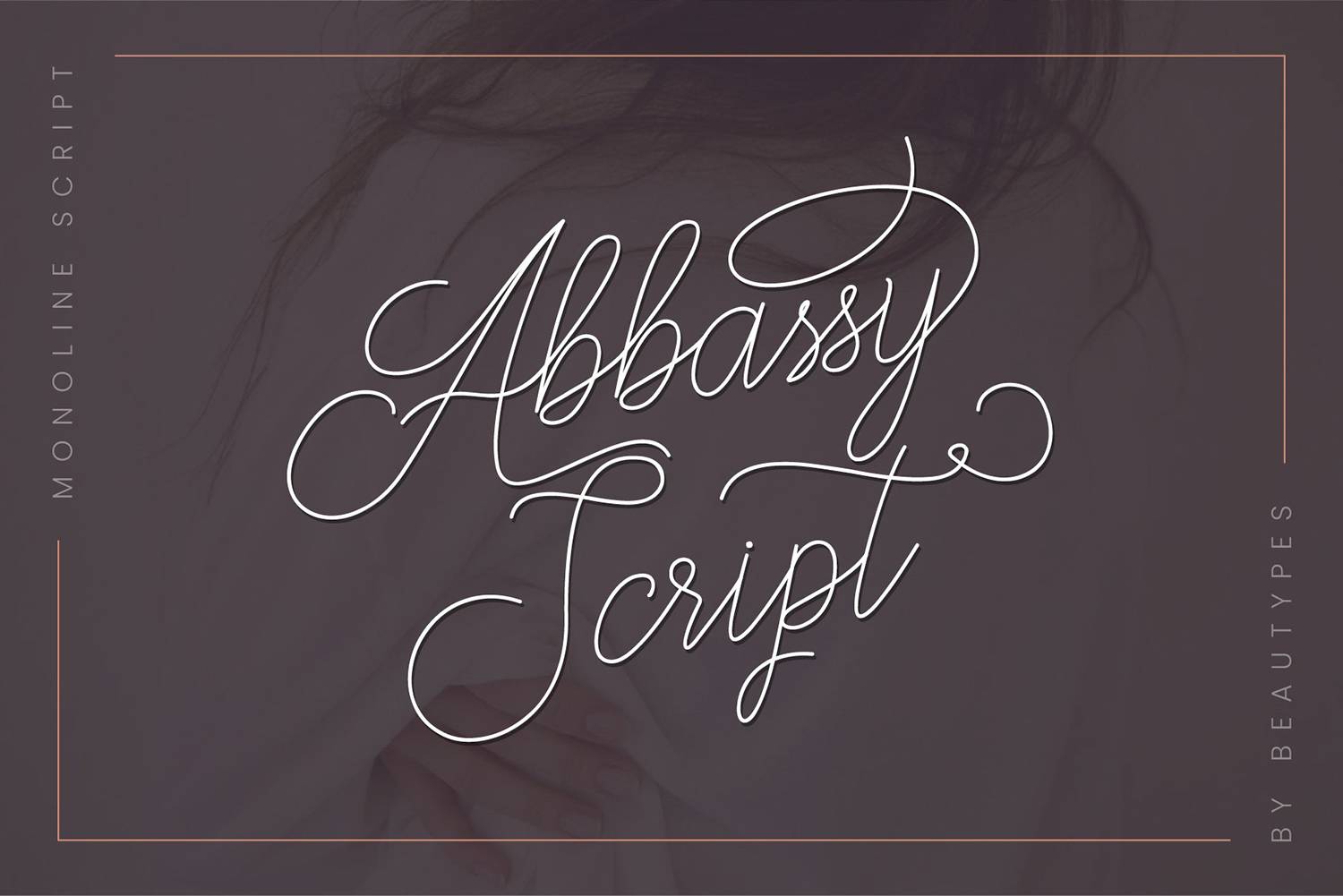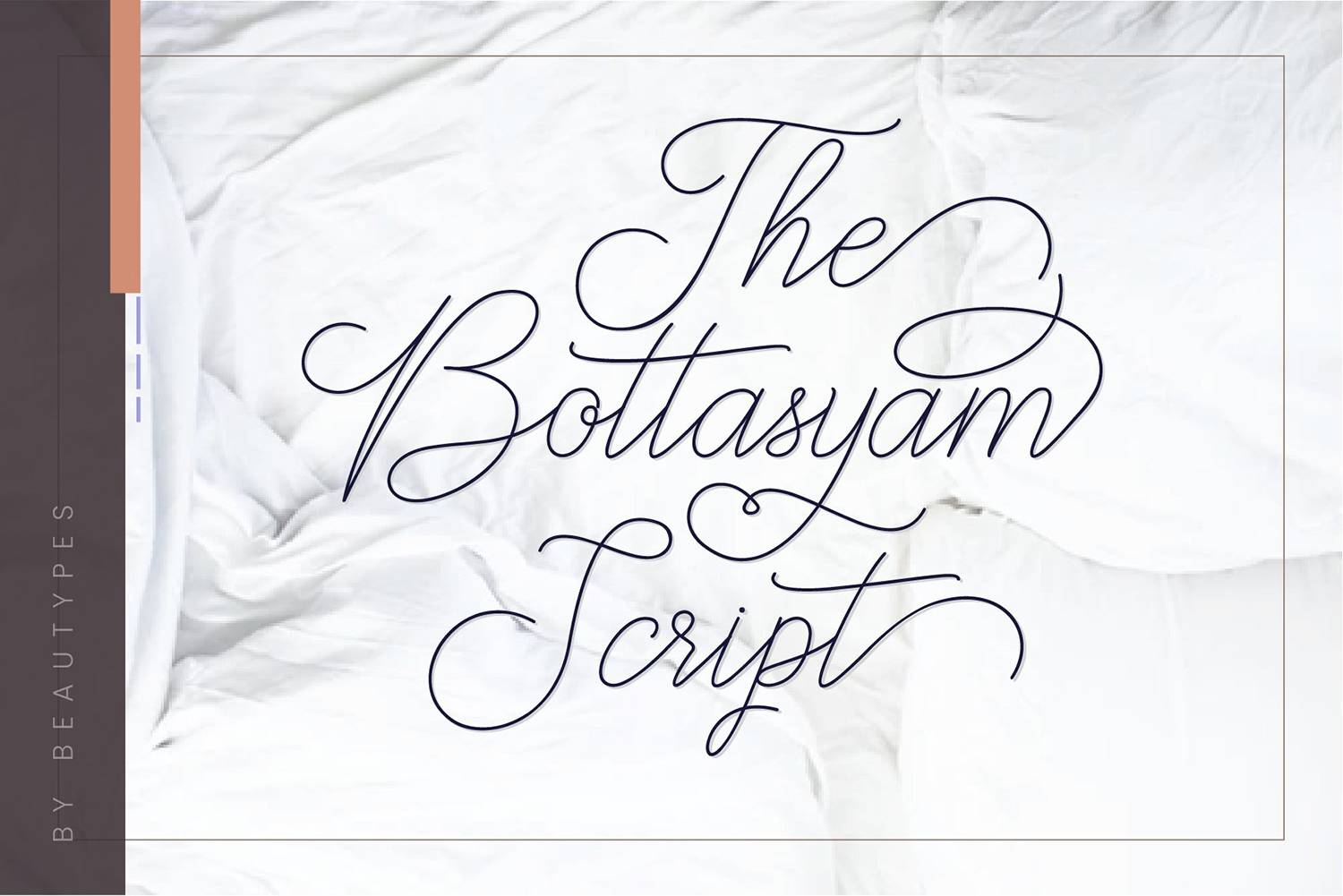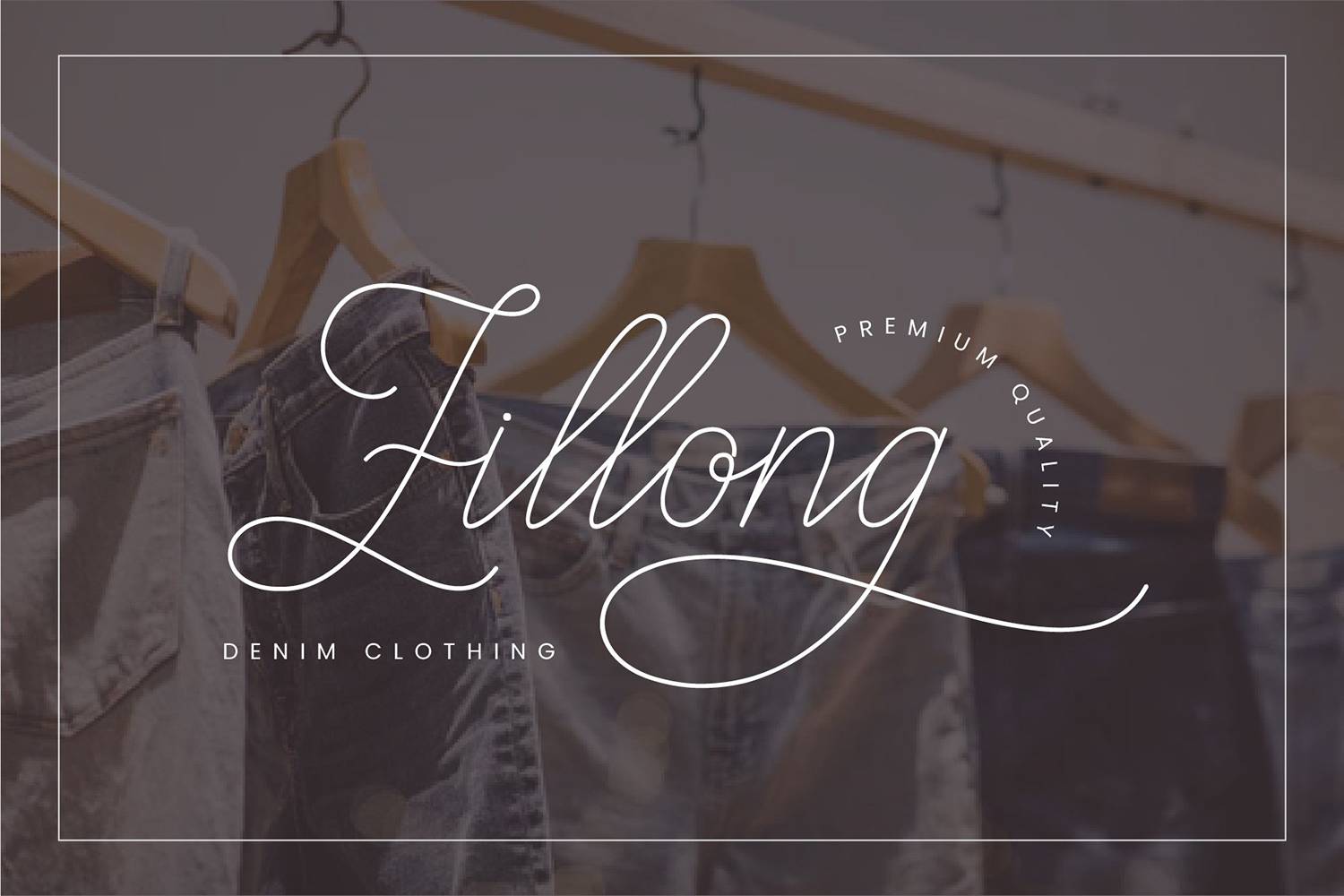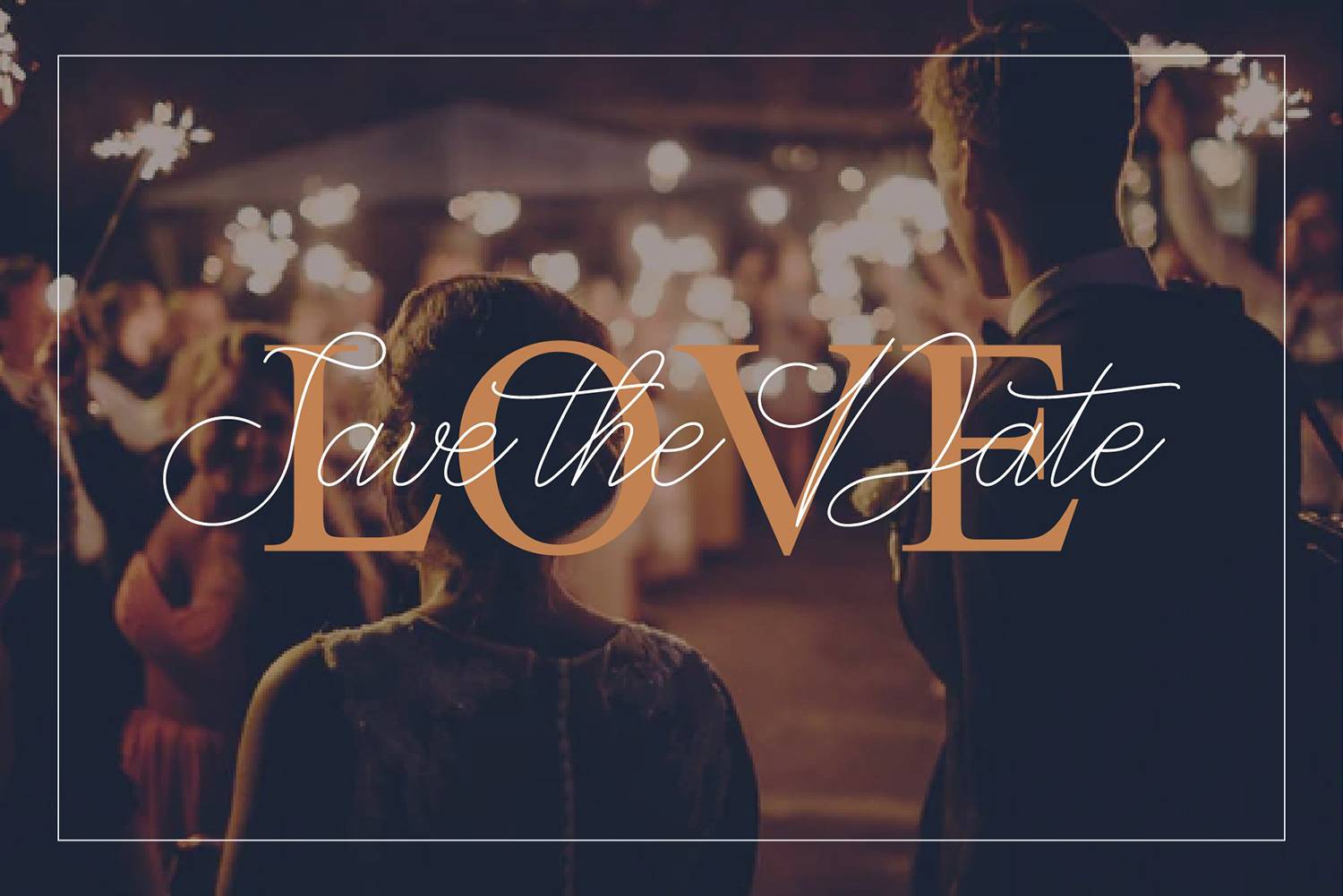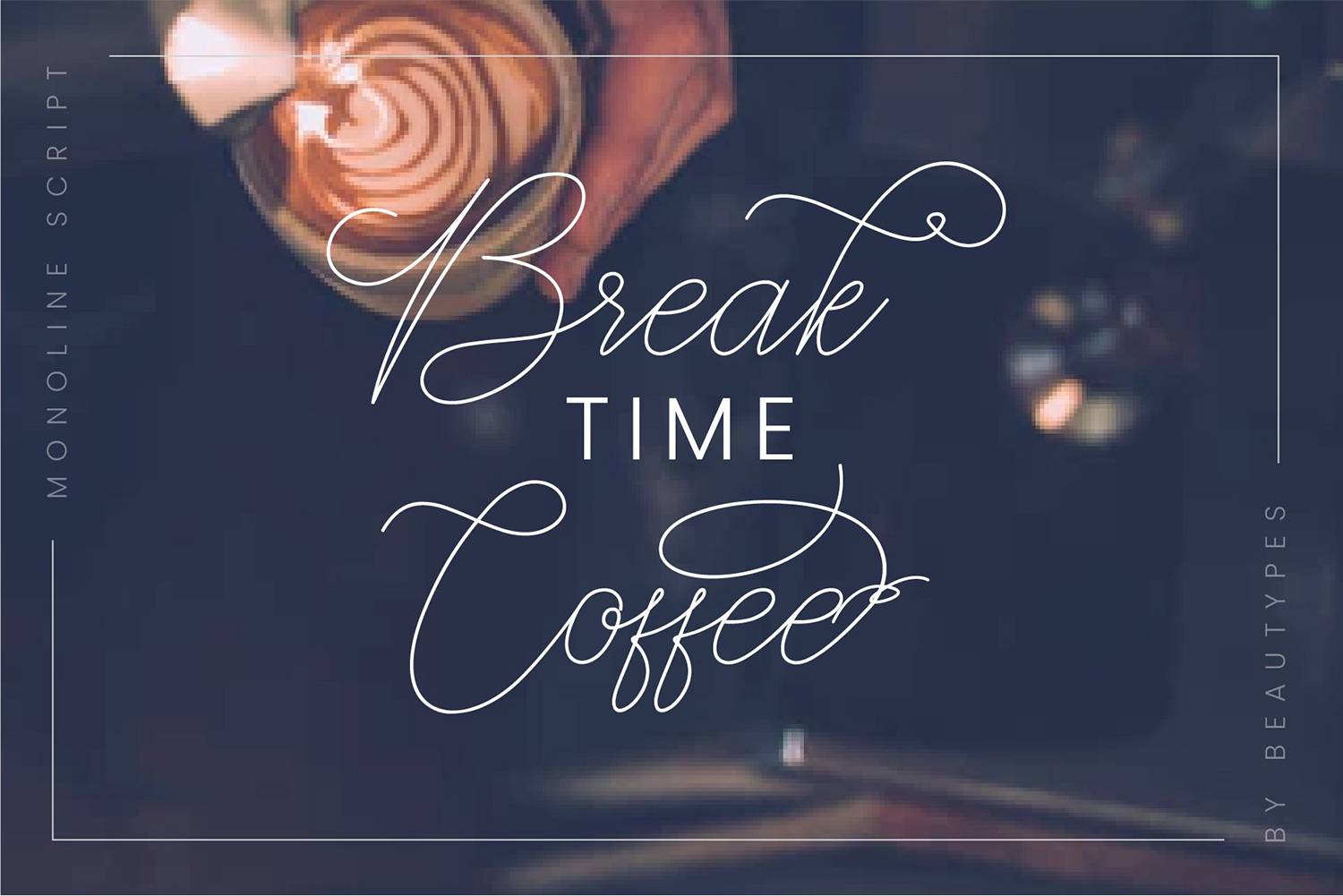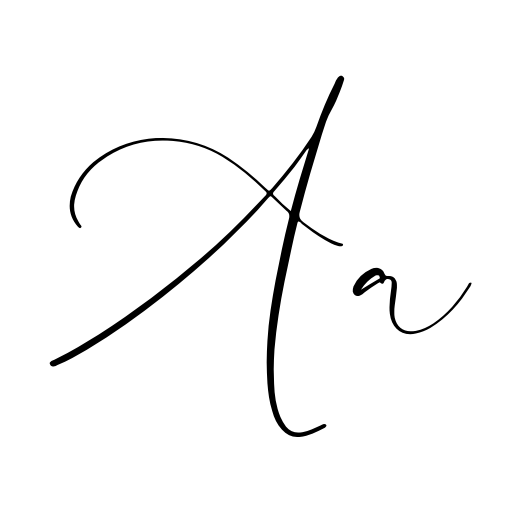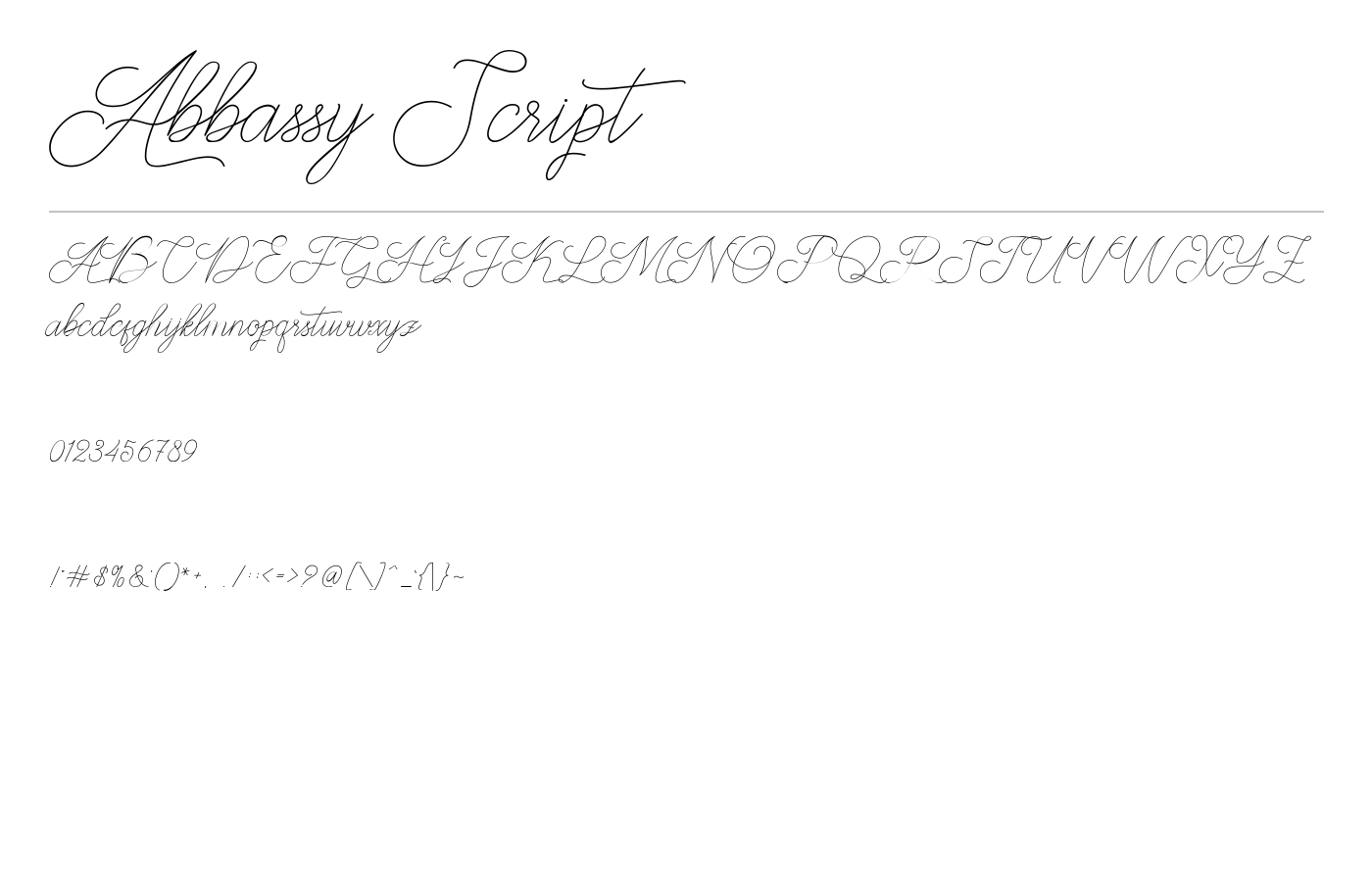
Abbassy Script is an elegant, delicate script font with fine, flowing strokes and graceful loops that evoke a refined and sophisticated feel. Its thin lines and ornamental swashes make it ideal for luxury branding, wedding invitations, and elegant logos where a touch of classic, handwritten charm is desired. This font shines best in large sizes, perfect for adding a personal and artistic flair to headlines and design details.
Abbassy Script Font
About Abbassy Script Font
| Font family | Abbassy Script Font |
| Designer | Rizaldi Wandani |